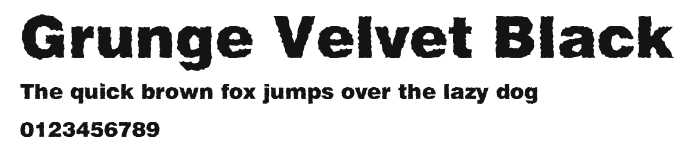
Grunge Velvet Black Preview
• Font Name: Grunge Velvet Black
• Full Font Name: Grunge Velvet Black
• PostScript Name: GrungeVelvetBlack
About Grunge Velvet Black.ttf
Grunge Velvet Black.ttf is a modern, elegant sans-serif font designed for ultimate readability and visual harmony. Perfect for branding, headlines, web design, and print materials.